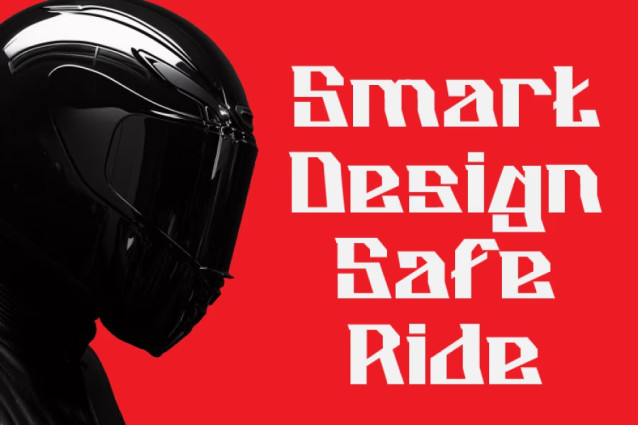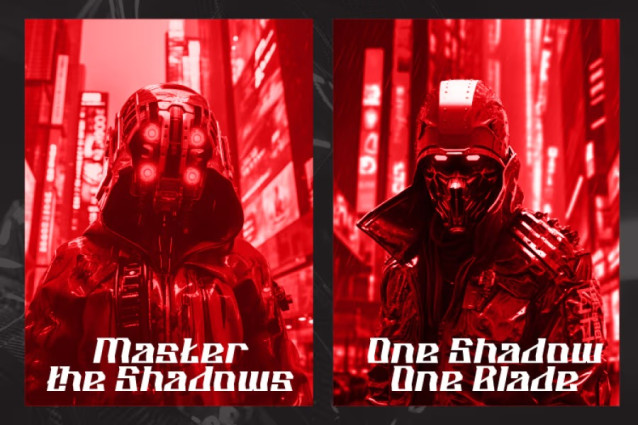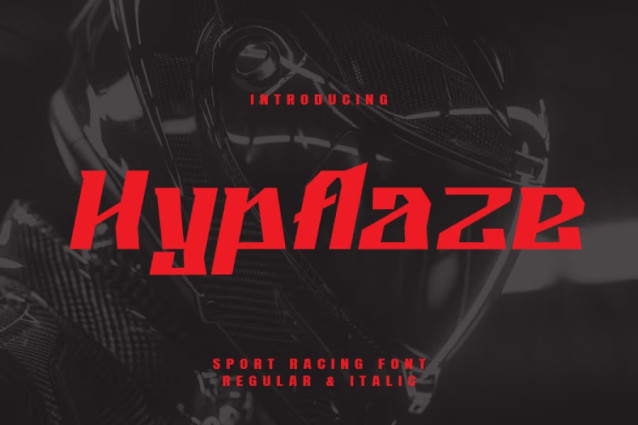
Hypflaze Sport Racing Font is a sport racing display font with a futuristic and cyberpunk edge. Designed to convey speed, power, and intensity, Hypflaze is perfect for sports branding, racing posters, tech-themed designs, and even military or sci-fi-inspired projects. Its sharp and angular letterforms inject energy and motion into every word.